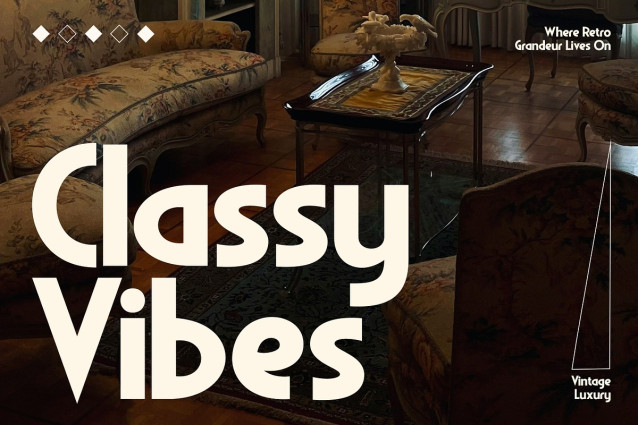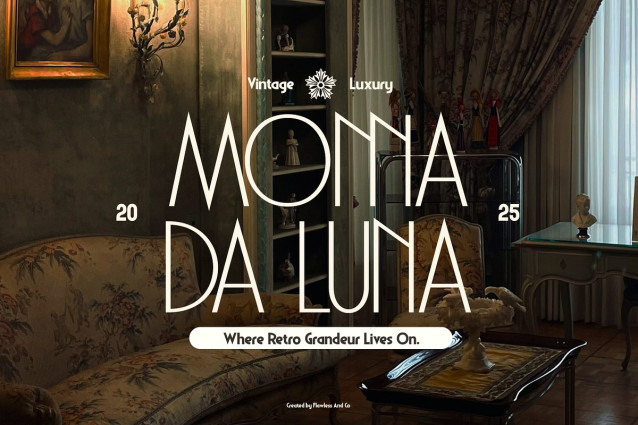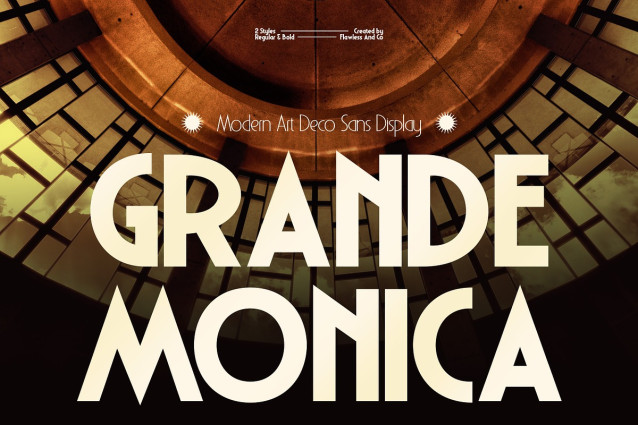
Grande Monica Font
Grande Monica Font is a refined display sans serif font that blends modern Art Deco aesthetics with timeless vintage luxury. Featuring 2 versatile styles (Regular & Bold), this font is crafted to deliver strong visual impact while maintaining elegance and clarity. Its tall proportions, clean geometry, and distinctive letterforms make Grande Monica ideal for designs that demand sophistication, character, and confidence.